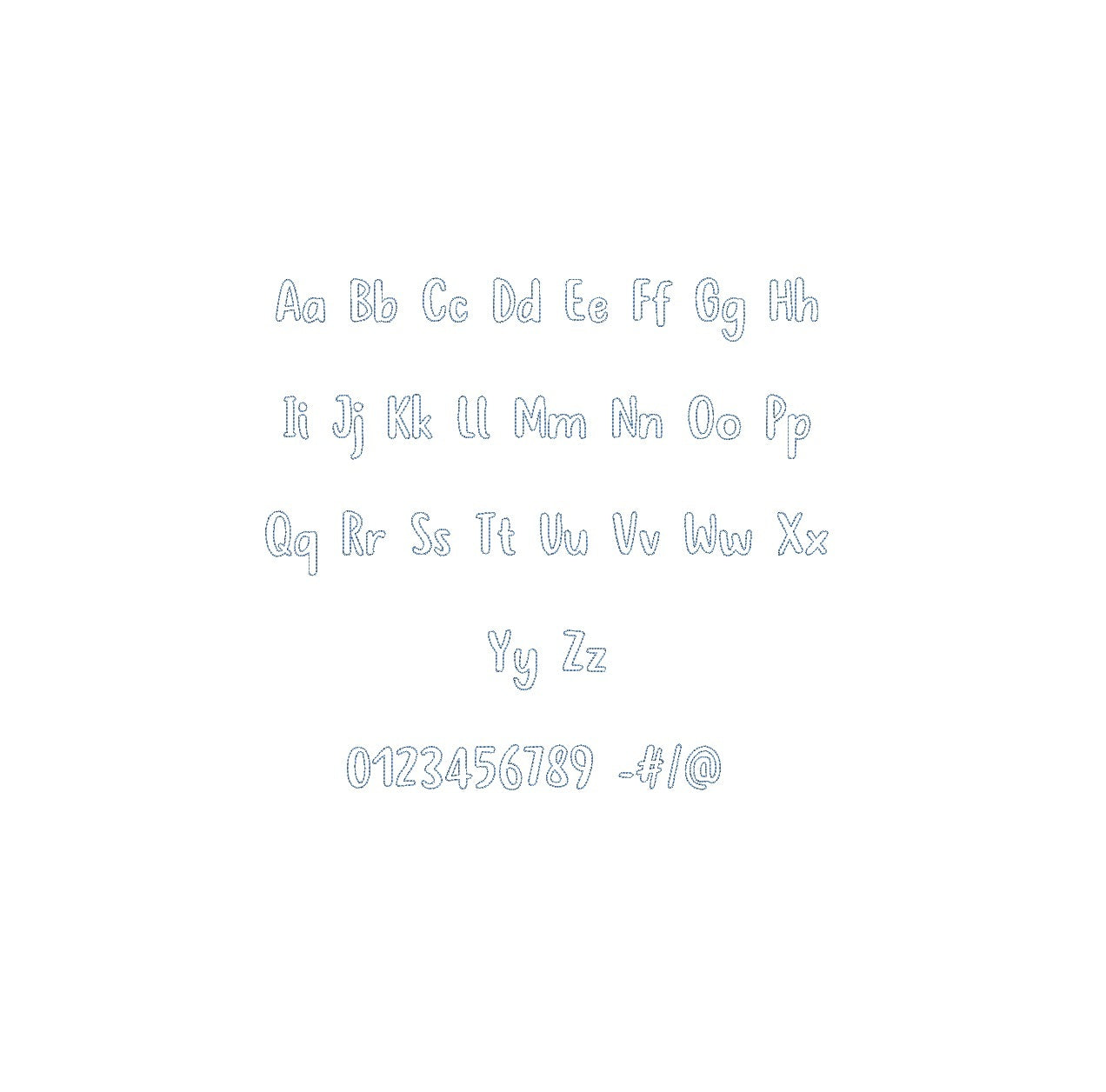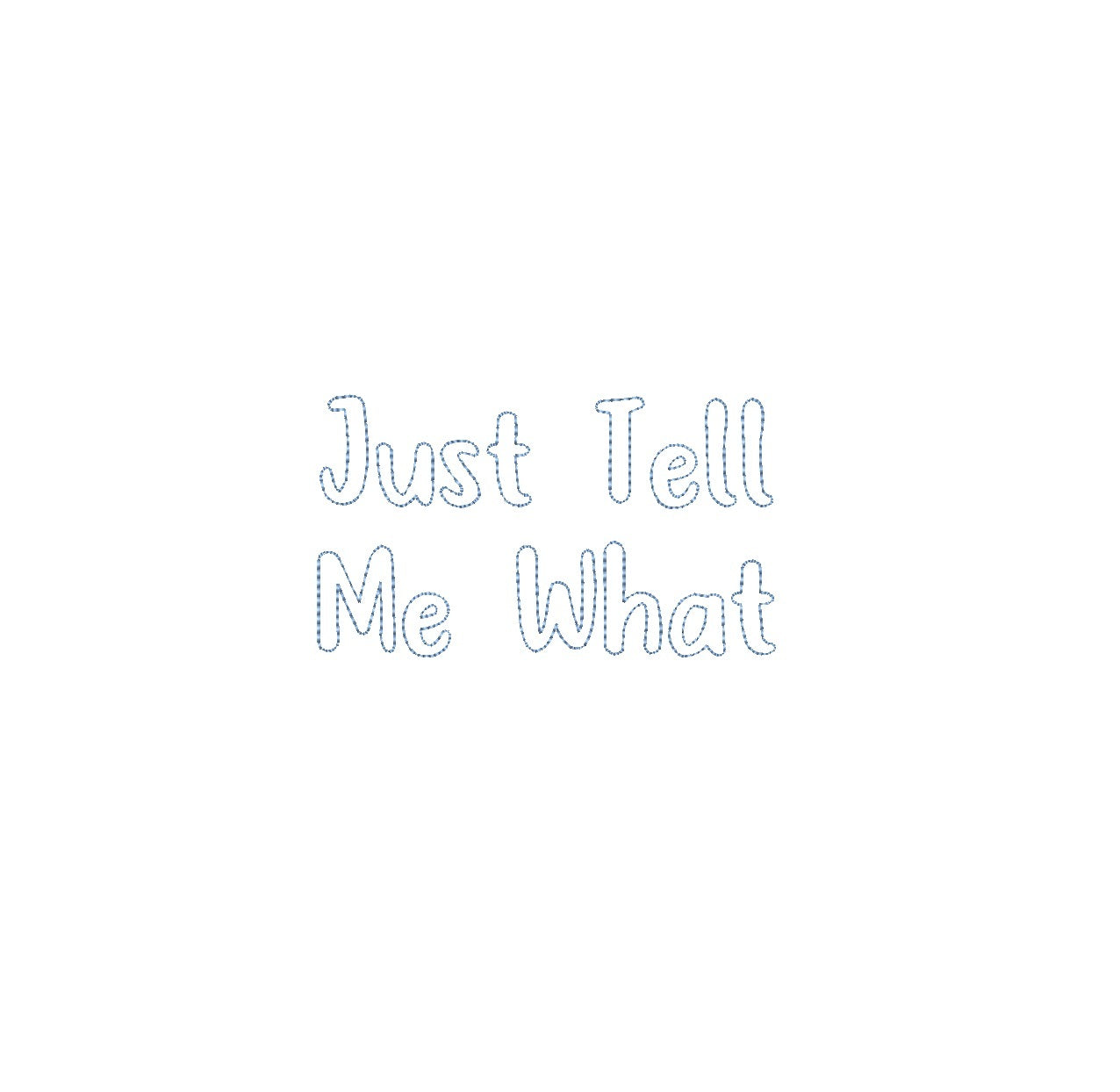
Just Tell Me What Bean Outline ESA font
Discover limitless possibilities with the Just Tell Me What Bean Outline ESA font. Seamlessly compatible with Wilcom Studio e4.5.6 and Hatch 3 and above, this font empowers your embroidery projects. Elevate your designs with its distinctive style, perfect for monograms and decorative elements. Ignite your creativity and streamline your digitizing process with ease. Unleash your imagination using this must-have font, easily accessible through Wilcom Studio and Hatch software. Revolutionize your embroidery creations with the Just Tell Me What Bean Outline ESA font and craft exquisite designs that stand out.